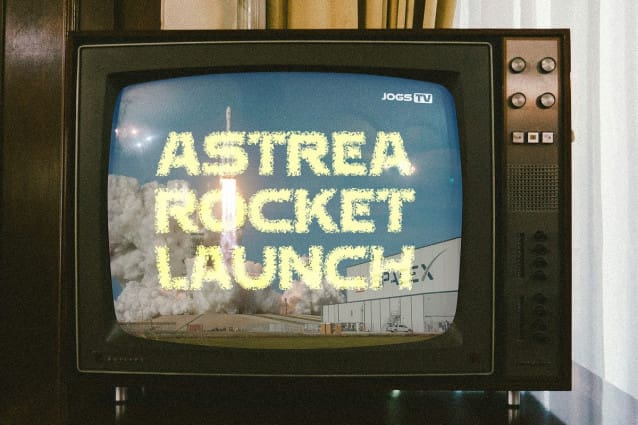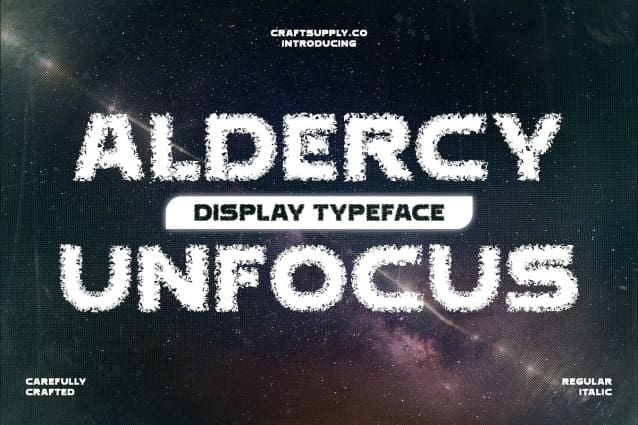
Aldercy Unfocus Font
Aldercy Unfocus Font is a modern sans serif font characterized by its bold form and an unfocused effect, where clear, thick lines are subtly blurred. This design element adds a unique twist, creating an intriguing and distinctive impression.
Ideal for projects that seek to highlight text in an artistic and experimental manner, Aldercy Unfocus blends clarity with a touch of creative ambiguity. The unfocused effect enhances visual interest, making it suitable for designs that aim to stand out with a modern and unconventional typographic style.
With its bold and unfocused design, Aldercy Unfocus adapts well to various creative contexts. Whether used in posters, artistic displays, branding, or digital designs, this font adds a contemporary and artistic flair, ensuring a captivating visual impact in any project.